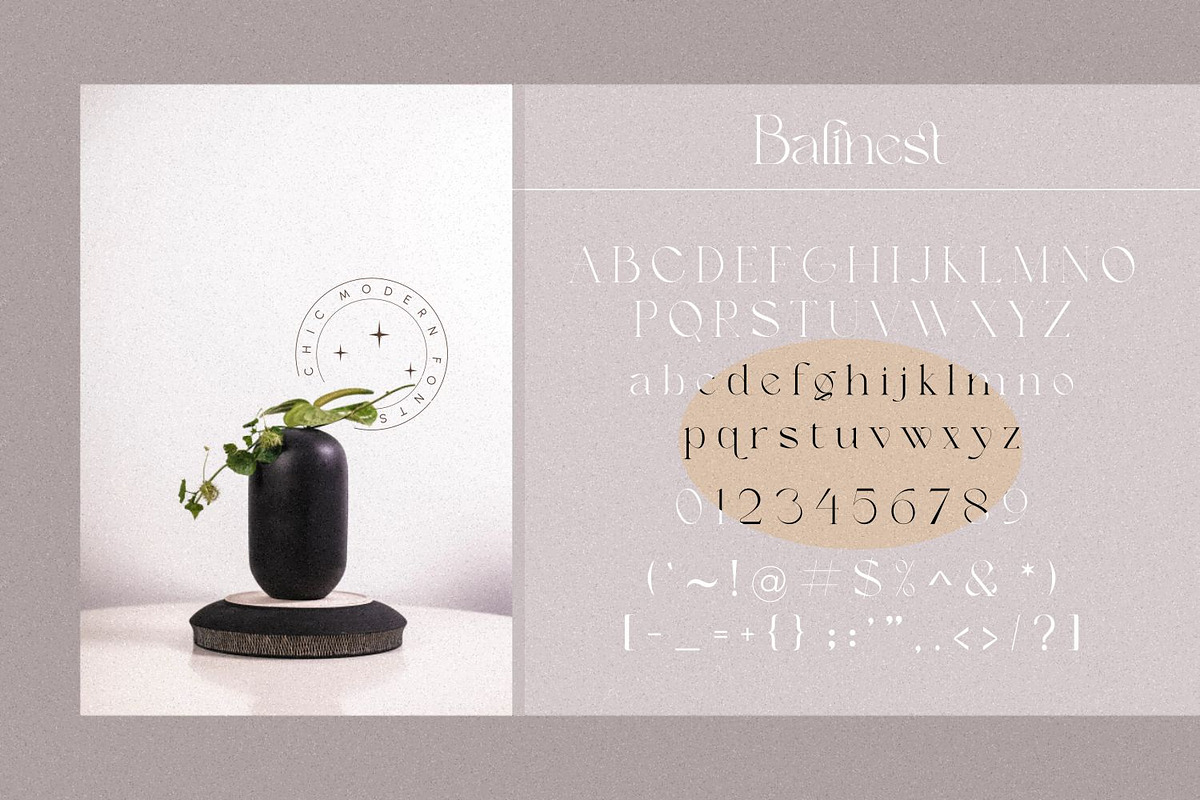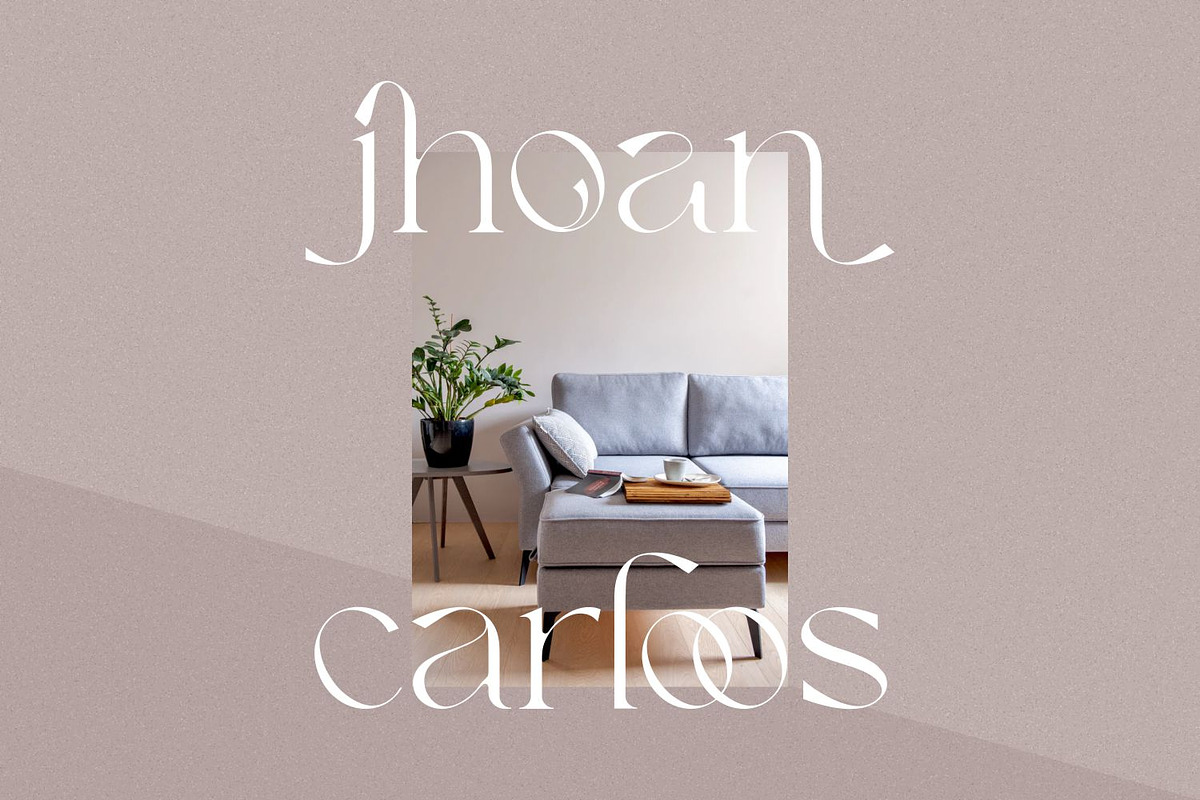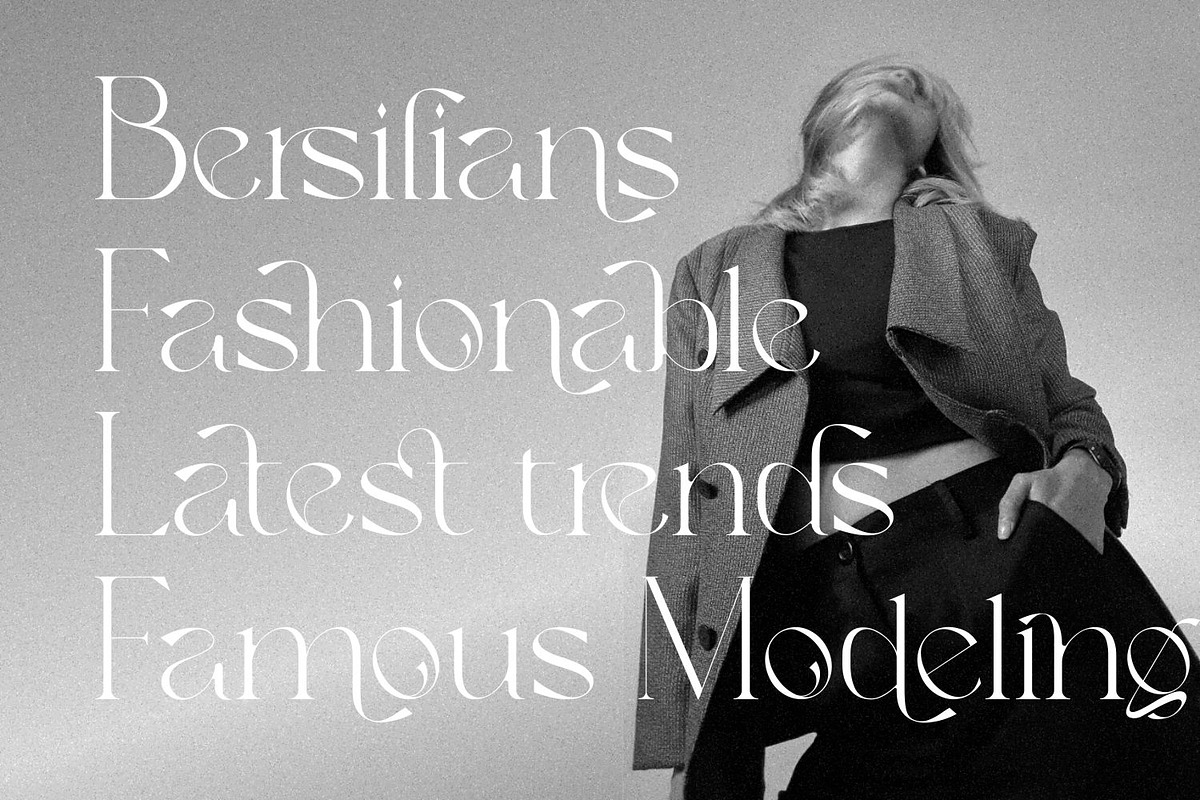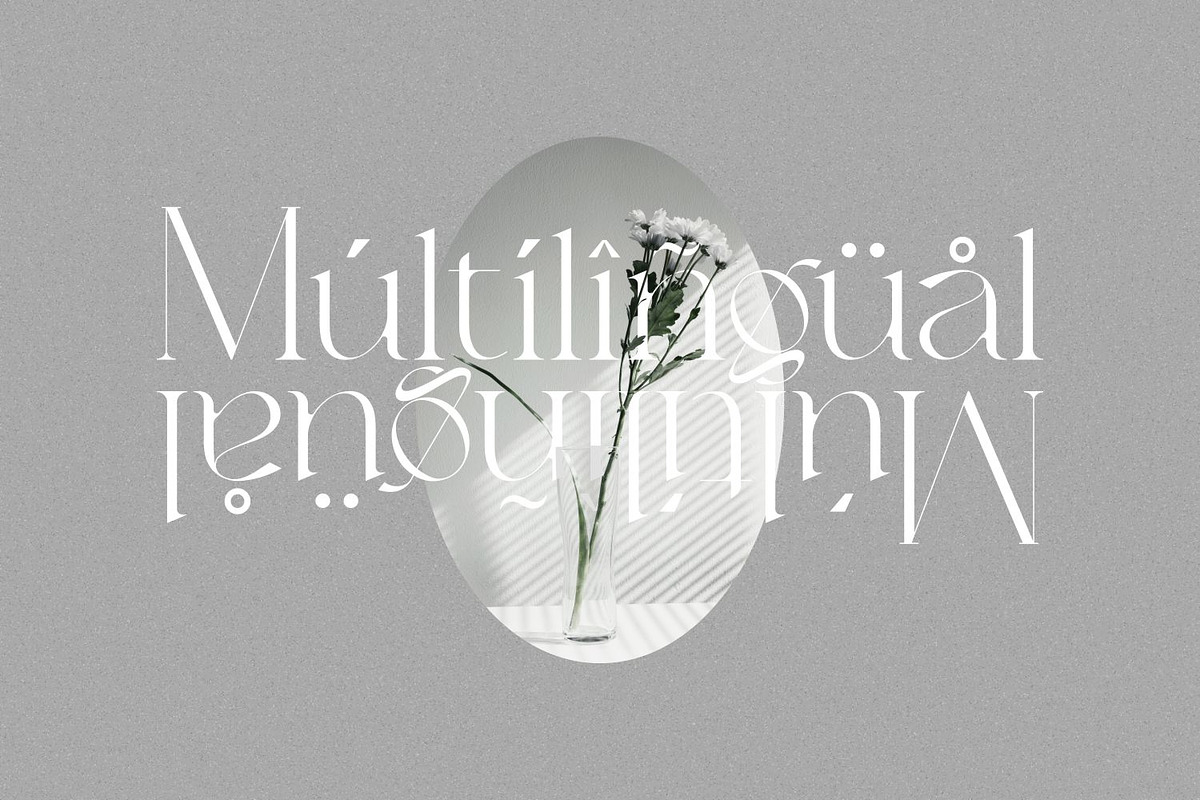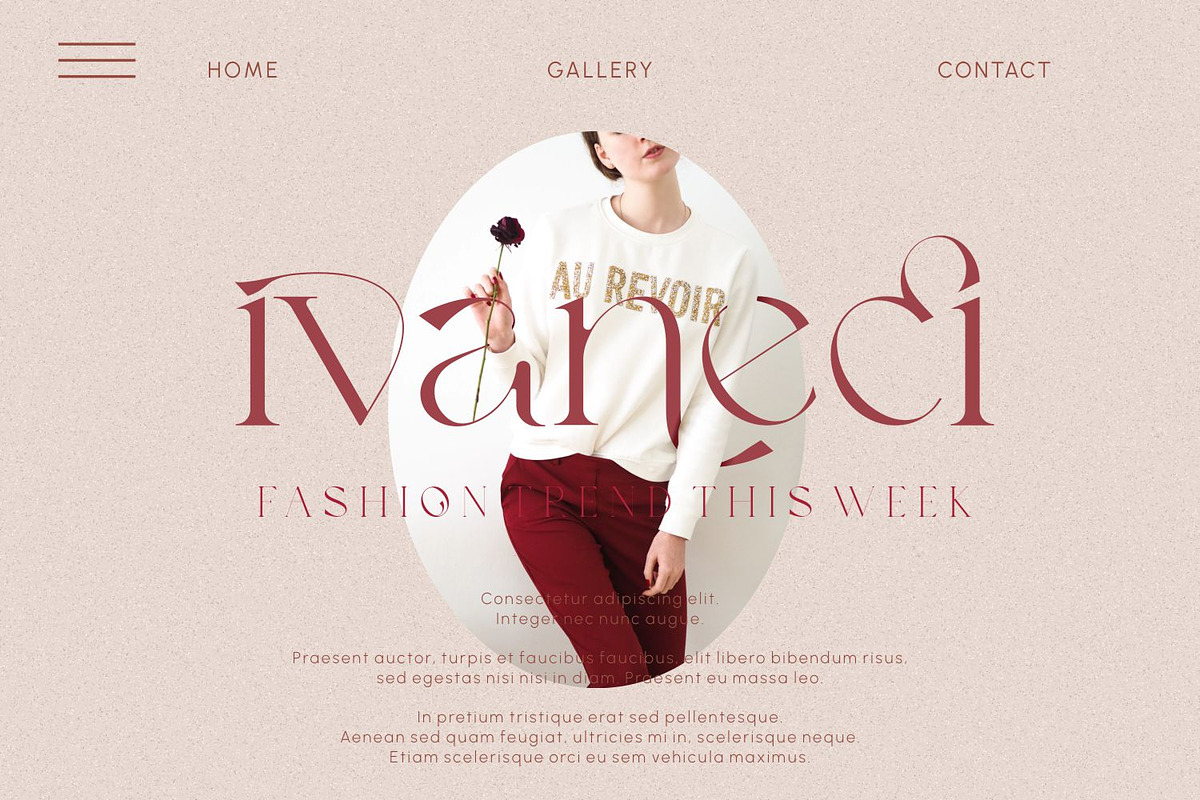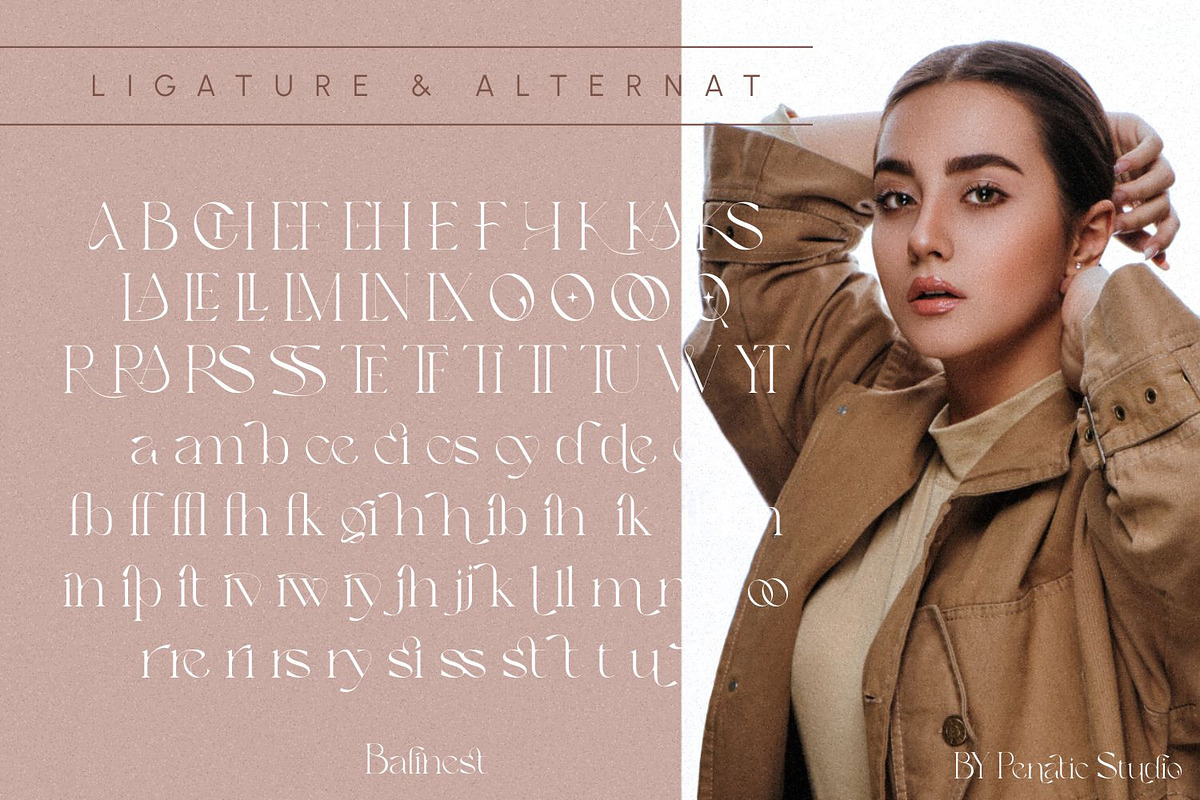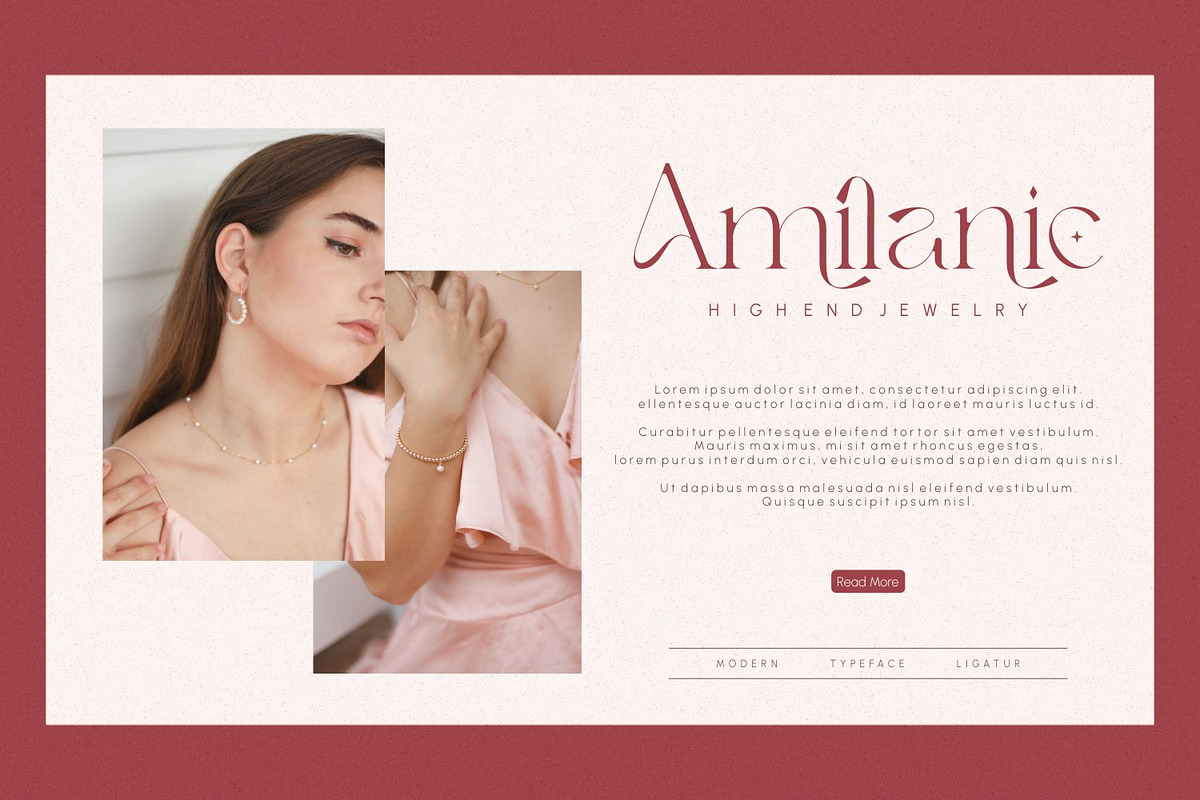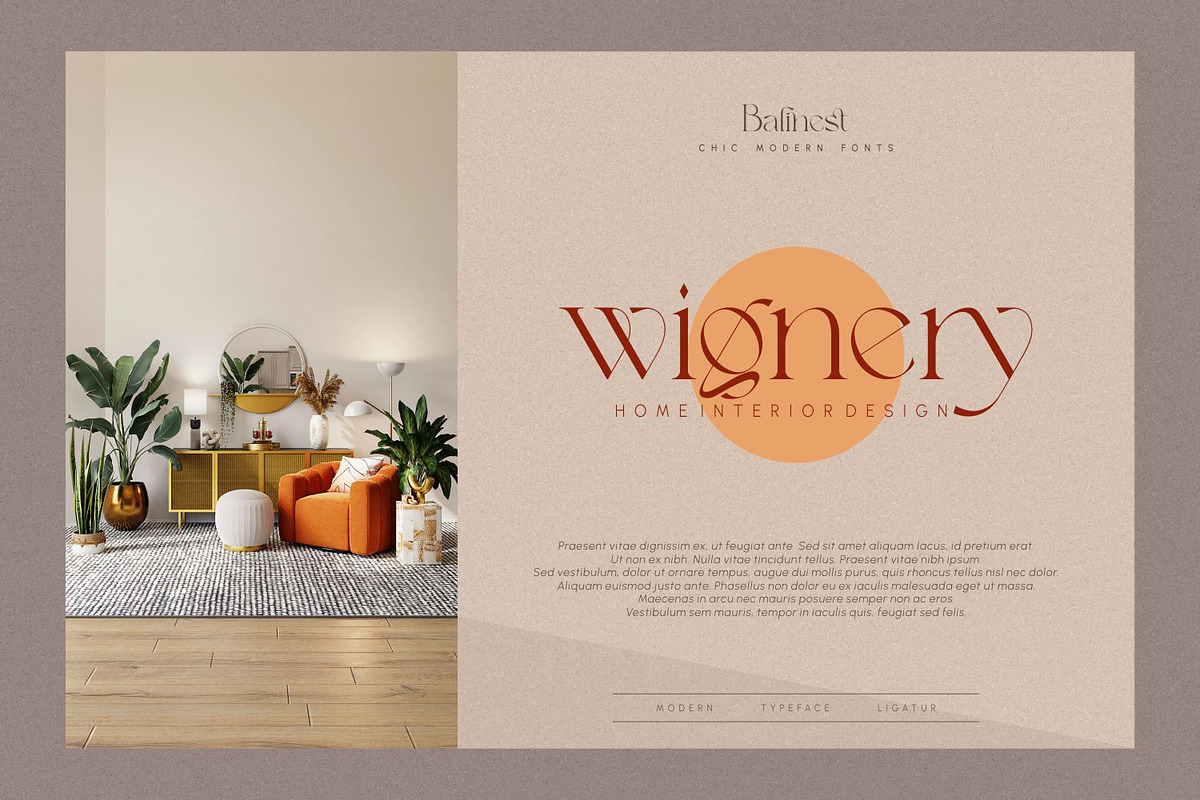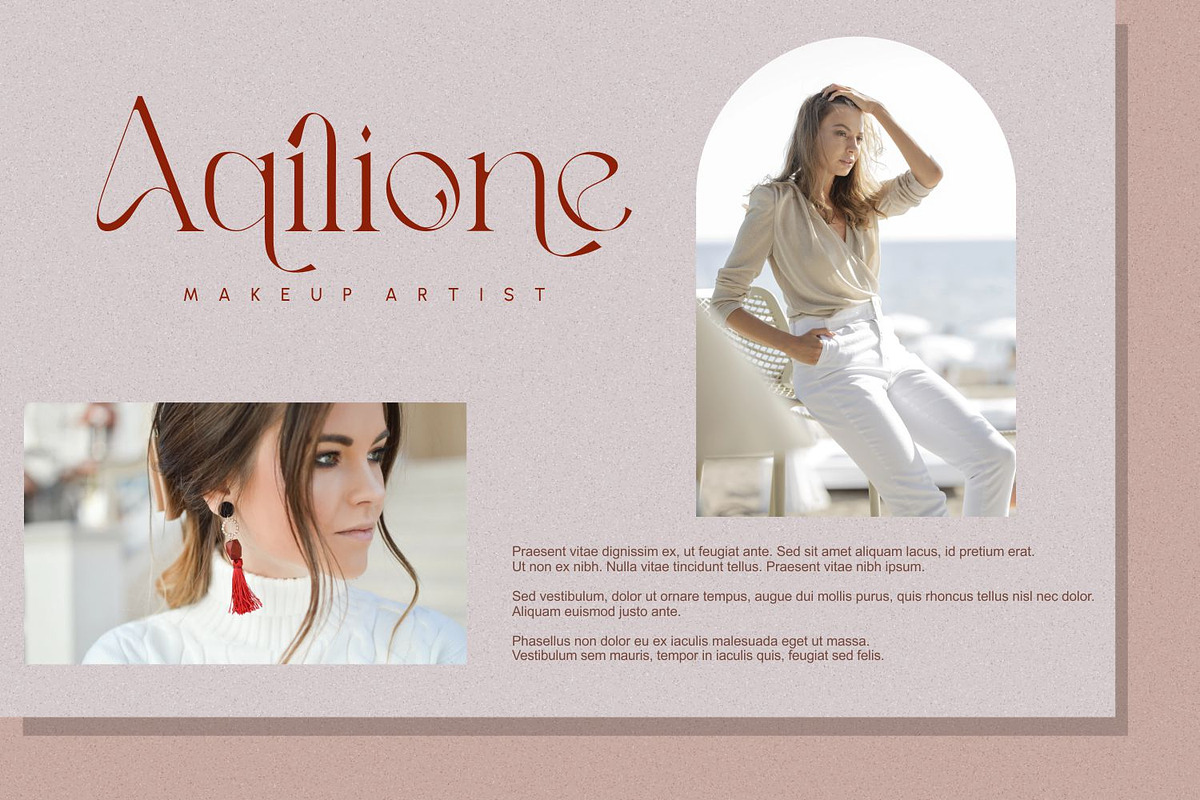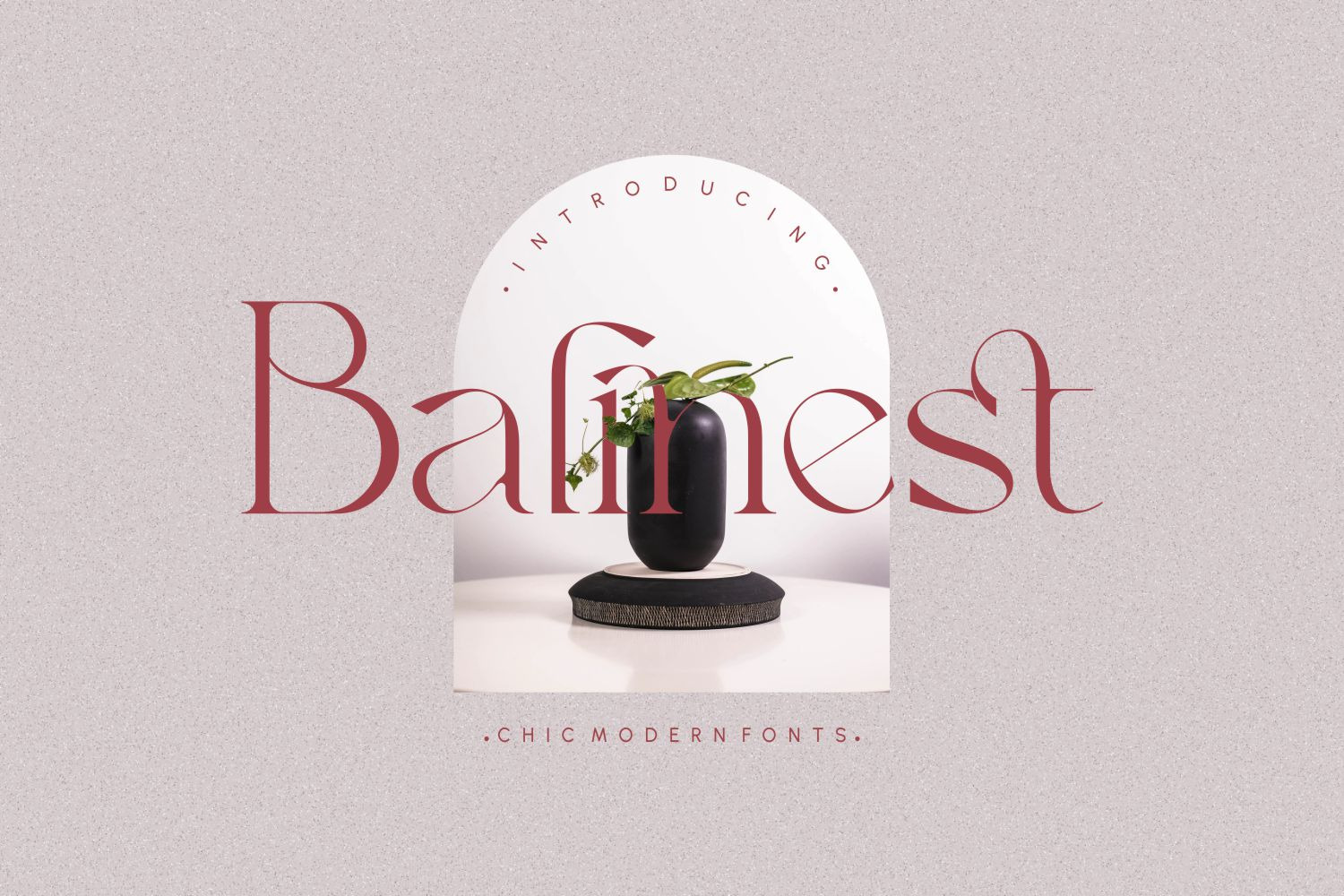
Balinest _ chic modern font
Introducing ''Balinest'' chic modern font
Balinest is designed with a modern style by accessing many alternative fonts and very smooth binding to make it seem more luxurious. The Balinest font is perfect for branding projects, fashion, logos, magazine imagery, jewelry, wedding invitations, posters, apparel, packaging, website headers, or simply as a stylish text overlay onto any background image.